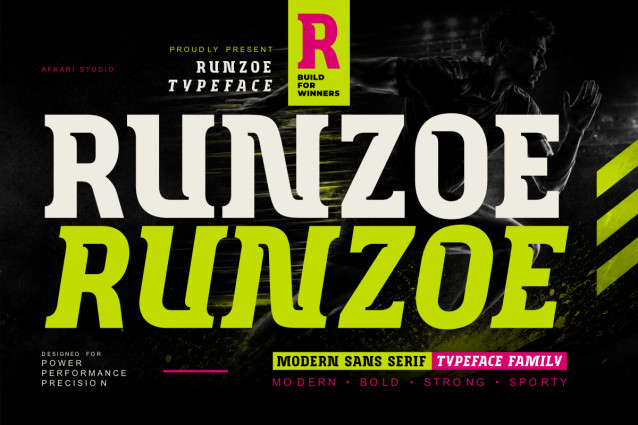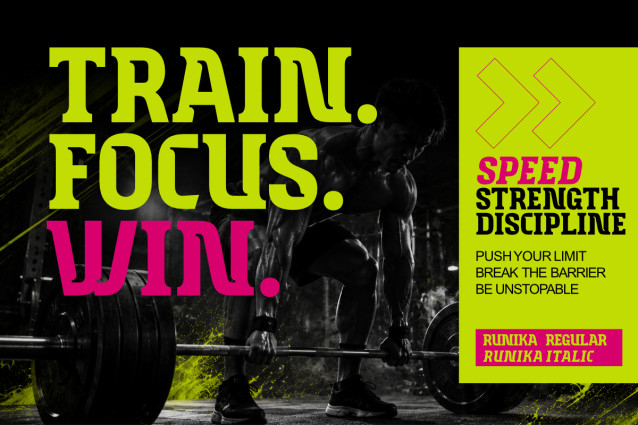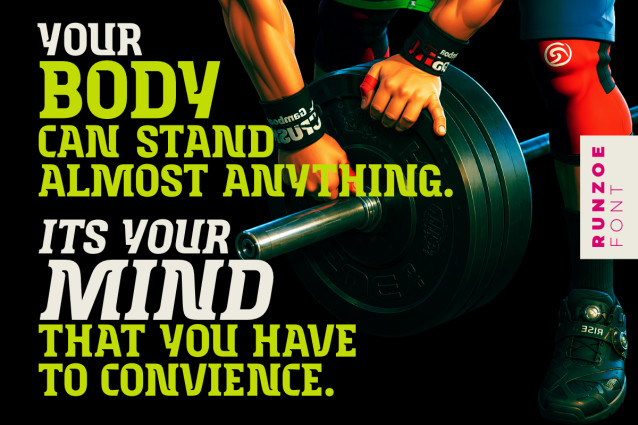
Runzoe – Modern Sans Serif Display Typeface Font
Runzoe is a bold and contemporary modern sans serif display typeface crafted to deliver strong visual impact with exceptional versatility. Designed for creators, brands, and designers who demand clean aesthetics and powerful typography, Runzoe combines geometric precision with modern character details to create a typeface that stands out across both digital and print applications.
Designer Name: afkaristudio